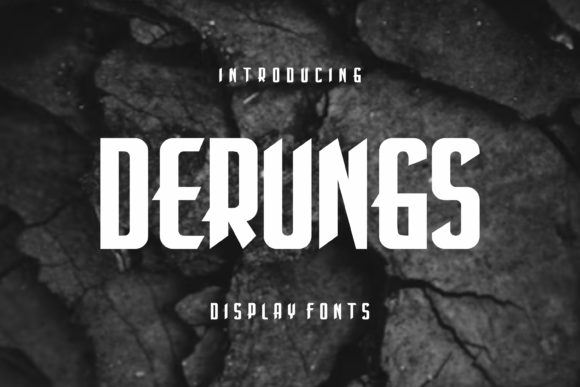
Introducing Derungs, the font that will revolutionize your poster titles! This stunning display font is meticulously crafted to captivate your audience and leave a lasting impression.
Derungs is more than just a font; it's a gateway to unleashing your creativity. Its crisp, clean lines and bold presence will elevate your posters to new heights. Whether you're designing for a corporate event, a captivating advertisement, or a personal passion project, Derungs will empower you to create masterpieces that speak volumes.
Imagine your poster's title emblazoned in the striking strokes of Derungs. It instantly commands attention, inviting viewers to delve deeper into your message. The font's inherent boldness adds a touch of authority, while its subtle elegance lends a hint of sophistication.
With Derungs, you'll effortlessly convey your ideas with style and impact. Its versatile nature makes it adaptable to a wide range of design aesthetics, from the classic and timeless to the modern and edgy.
Join the ranks of creative visionaries who trust Derungs to elevate their poster titles. Its impeccable quality and undeniable charisma will transform your designs into works of art that resonate with your audience.